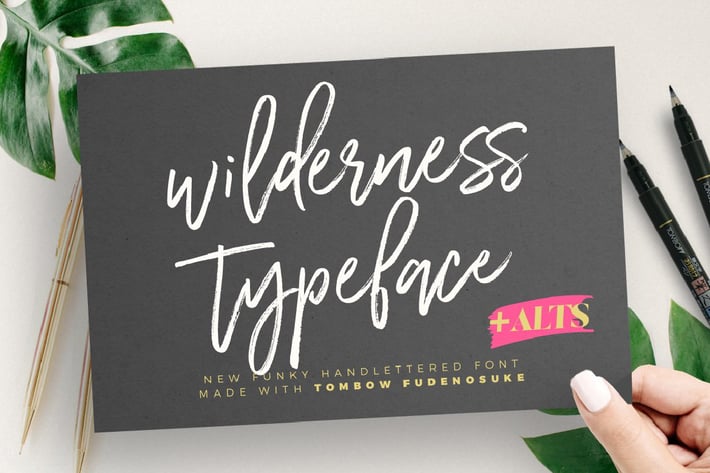
Wilderness Typeface
Wilderness Typeface is a new funky hand lettered font made with Tombow Fudesunoke brush pen. It's authentically handlettered font with lowercase alternates. Designed to work perfectly in multiple designs like wedding invitations, website logos, Instagram posts and many many more 😊
WILDERNESS TYPEFACE - Upper and lowercase characters, numerals, punctuations and a wide language support. Alternates for lowercase characters. Including both, OTF and TTF filetypes.
WILDERNESS TYPEFACE ALT - Alternates for lowercase characters. Including both, OTF and TTF filetypes.